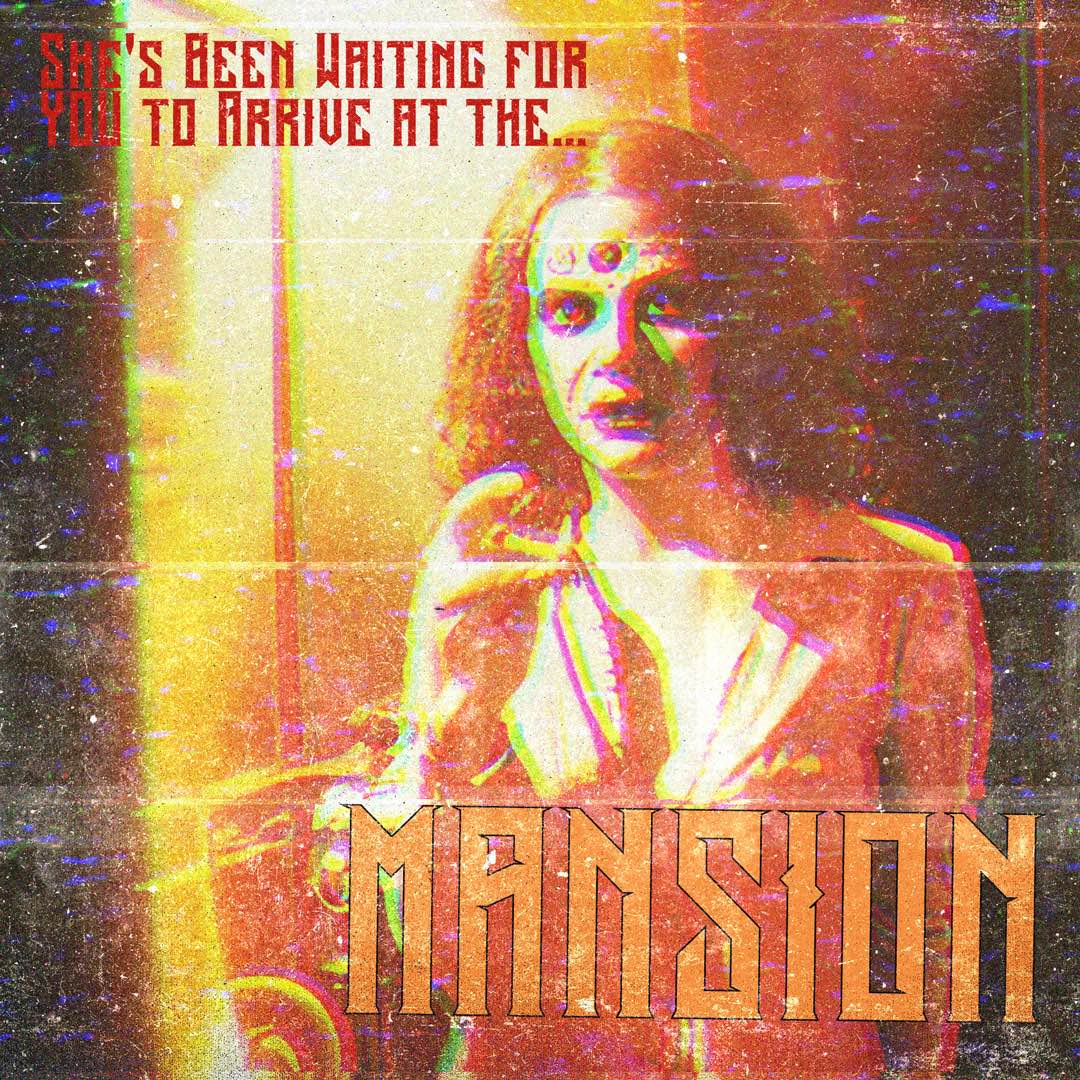
Mansion pairs beautifully with clean, modern sans-serif fonts that let its ornate elegance take the spotlight. Fonts like Helvetica Neue, Futura, and Avenir offer a neutral, contemporary contrast that balances Mansion’s vintage drama. For more personality, try Maison Neue, Suisse Int’l, or Aperçu, which bring subtle geometric quirks without overpowering. If you’re aiming for something edgier or fashion-forward, Neue Haas Grotesk or Founders Grotesk create striking tension. The key is contrast, Mansion brings the flair, your sans-serif should keep it cool.